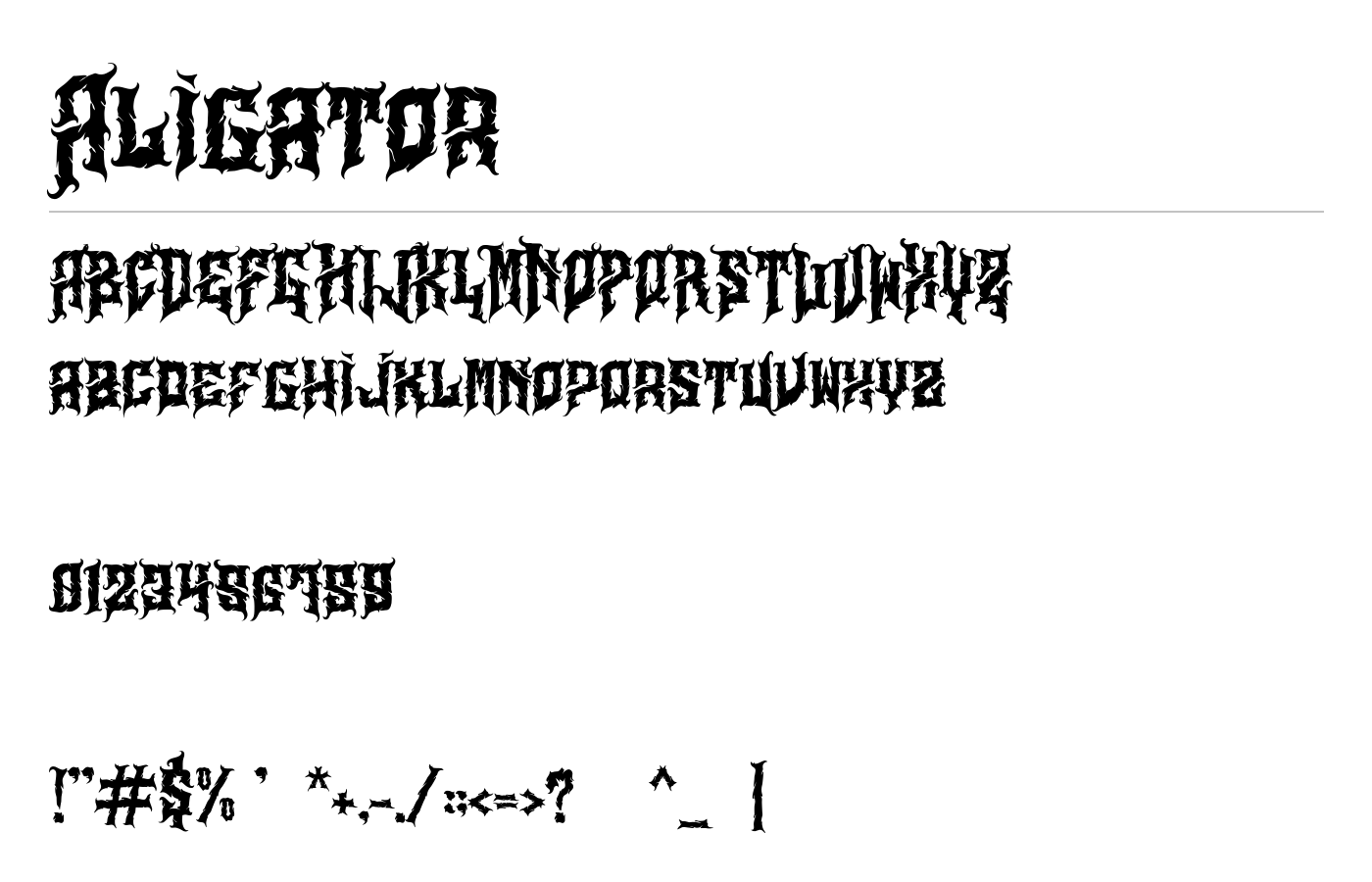
Aligator is a bold, decorative serif font with a striking, rugged texture that evokes a fierce, wild character. Its jagged, irregular shapes and high contrast between thick and thin strokes give it a dramatic and intense feel, perfect for edgy branding, posters, or designs needing a strong, primal impact. This font works best in display settings where its unique, eye-catching style can shine without sacrificing legibility.
Aligator Font
About Aligator Font